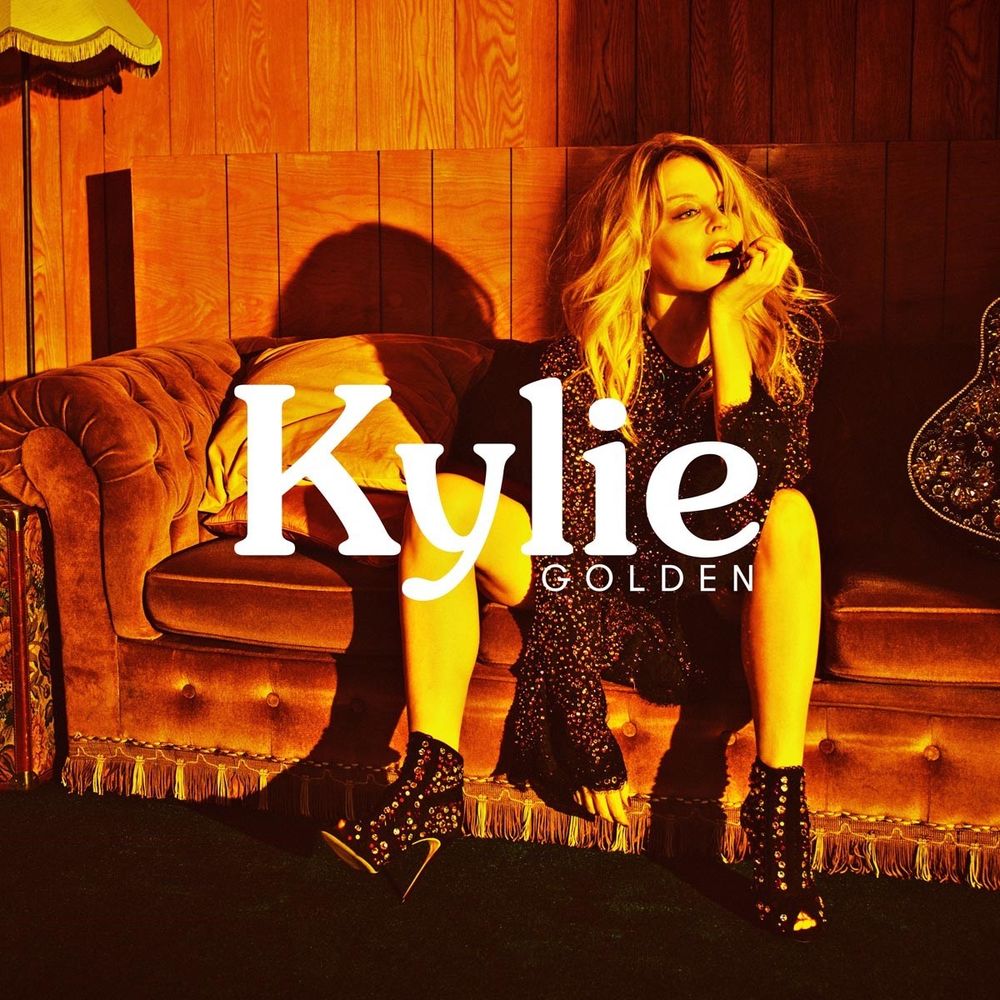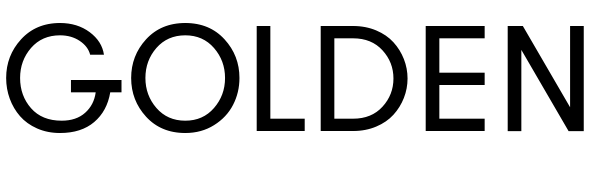
Golden (Kylie Minogue) Font
CountryGolden is the 14th studio album by Kylie Minogue, released in 2018. It features a mix of upbeat pop and country-influenced tracks, showcasing Minogue's versatility as an artist.
On the cover of the album, the singer's name is styled in the rounded serif typeface known as Souvenir, created by Morris Fuller Benton in 1914. For the title of the album GT Walsheim, a sans serif font designed by Noël Leu is used.